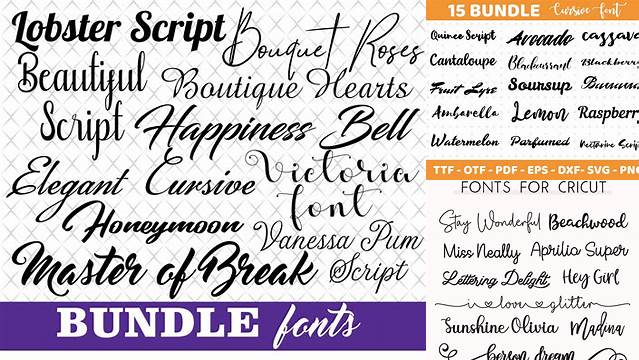
Free Cursive Fonts For Cricut: Your Ultimate Guide
Hey crafters! Are you looking to add a touch of elegance and personality to your Cricut projects? Cursive fonts are the perfect way to do it! They can transform a simple design into something truly special, whether you're making personalized gifts, home decor, or party invitations. But with so many cursive fonts out there, finding the right one for your project – and making sure it works seamlessly with your Cricut – can feel a little overwhelming. Don't worry, guys, I'm here to guide you through the world of free cursive fonts for Cricut, showing you where to find them, how to use them, and even some tips and tricks for making your projects look their absolute best. So, grab your Cricut machine and let's dive into the beautiful world of cursive lettering!
Why Choose Cursive Fonts for Your Cricut Projects?
Before we jump into the font hunt, let's talk about why cursive fonts are such a fantastic choice for your Cricut creations. Cursive fonts, with their flowing lines and connecting letters, bring a sense of sophistication and personalization that other fonts just can't match. Think about it: a simple quote in a basic font is nice, but the same quote in a beautiful cursive font? It instantly becomes an eye-catching piece of art. The fluidity and grace of cursive lettering evoke feelings of elegance, romance, and even a bit of whimsy, making them perfect for a wide range of projects. From wedding invitations and personalized monograms to inspirational wall decals and heartfelt greeting cards, the possibilities are endless. Choosing the right cursive font can elevate your project from ordinary to extraordinary. The flowing lines create a sense of movement and rhythm, drawing the eye and adding a touch of personality. Imagine a custom-made birthday banner with each letter gracefully connected, or a delicate name decal for a nursery wall. These are the kinds of projects that cursive fonts make possible. The right cursive font can truly capture the essence of your message and make your creations stand out. However, it's not just about aesthetics. Cursive fonts can also add a layer of meaning and emotion to your projects. A handwritten-style font can evoke feelings of nostalgia and intimacy, making it perfect for sentimental gifts or heartfelt messages. A bold and flowing script can convey confidence and energy, while a delicate and elegant cursive can create a sense of romance and sophistication. The choice of font can speak volumes, so think carefully about the message you want to convey and select a font that aligns with your vision. Ultimately, the power of cursive fonts lies in their ability to transform the ordinary into the extraordinary. By adding a touch of elegance, personalization, and emotion, these fonts can help you create projects that are truly unique and memorable. So, whether you're a seasoned crafter or just starting out, exploring the world of cursive fonts is sure to unlock a new level of creativity and allow you to bring your visions to life.
Finding Free Cursive Fonts for Cricut
Okay, let's get to the fun part – finding those gorgeous cursive fonts! The internet is a treasure trove of free fonts, but navigating through them all can be a bit like searching for a needle in a haystack. You want to find fonts that are not only beautiful but also compatible with Cricut Design Space and licensed for commercial use if you plan to sell your creations. So, where do you start? There are a few fantastic resources that I highly recommend. First up are dedicated font websites like Dafont, FontSpace, and Creative Fabrica (which often has freebies sections). These sites have massive libraries of fonts, many of which are cursive. The key is to use their filters and search functions effectively. Look for categories like "script," "handwritten," or "calligraphy" to narrow down your search. When browsing, pay close attention to the font license. Many fonts are free for personal use but require a commercial license if you intend to use them in products you sell. Make sure you understand the terms before you start creating. Another excellent resource is the Cricut Design Space itself! Cricut offers a selection of fonts, some of which are included with your Cricut Access subscription. While not all of these are free, it's worth exploring what's available, as these fonts are guaranteed to work seamlessly with your machine. Keep an eye out for special promotions and free font bundles that Cricut occasionally offers. Beyond font websites and Cricut Design Space, there are also online design communities and blogs that often share free font resources. Sites like The Hungry JPEG and Creative Market often have weekly freebies that include beautiful cursive fonts. Following your favorite crafting blogs and social media accounts can also lead you to hidden gems. Many designers and font creators offer free fonts as a way to promote their work, so staying connected to the crafting community can be a great way to discover new fonts. When you find a font you love, be sure to download it and install it on your computer. This will allow you to access the font in Cricut Design Space. Remember to restart Design Space after installing a new font so that it appears in your font list. One important tip: it's always a good idea to keep your font library organized. Create folders on your computer to categorize your fonts by style (e.g., cursive, sans-serif, display) to make them easier to find later. With a little bit of searching and organization, you'll have a stunning collection of free cursive fonts at your fingertips, ready to elevate your Cricut projects to the next level. Remember to always double-check the font license before using it in your projects to ensure you're complying with the terms of use.
Tips and Tricks for Beautiful Cursive Cricut Projects
Okay, guys, you've got your fonts installed, you know how to use them in Cricut Design Space, but let's talk about taking your projects to the next level! There are some key tips and tricks that can really make your cursive creations shine. First up, consider the material you're working with. Different materials will showcase cursive fonts in different ways. For paper crafts, a delicate and flowing script can add a touch of elegance to cards, invitations, and scrapbook pages. For vinyl projects, a bolder cursive font can stand out beautifully on signs, decals, and apparel. Think about the overall aesthetic you're aiming for and choose a font that complements your material. Color is another powerful tool when working with cursive fonts. A contrasting color can make your lettering pop, while a subtle color palette can create a more understated and sophisticated look. Experiment with different color combinations to see what works best for your project. Metallic vinyl or glitter cardstock can add a touch of glamour to your cursive designs, while matte vinyl or textured paper can create a more rustic or vintage feel. Embellishments can also elevate your cursive projects. Think about adding flourishes, swirls, or other decorative elements to your lettering. You can find free flourishes online or create your own in Design Space using shapes and drawing tools. Layering different cursive fonts can also create a visually interesting effect. Try pairing a bold script with a delicate handwritten font to add depth and dimension to your design. Just be careful not to overcrowd your project – keep the overall design balanced and harmonious. The size of your cursive lettering is also crucial. Make sure the font is legible and proportional to the rest of your design. A font that's too small can be difficult to read, while a font that's too large can overwhelm the project. Use the sizing tools in Design Space to adjust the font size until it looks just right. When cutting cursive fonts, especially intricate ones, it's essential to use a sharp blade and a clean cutting mat. A dull blade can tear the paper or vinyl, resulting in a messy cut. A sticky mat will hold the material in place during cutting, preventing it from shifting and ensuring a clean and precise result. If you're using heat transfer vinyl (HTV), make sure to mirror your design before cutting. This will ensure that the lettering is oriented correctly when you iron it onto your fabric. And speaking of HTV, remember to weed your design carefully, removing all the excess vinyl around the letters. This can be a bit tedious, especially with intricate cursive fonts, but it's essential for a professional-looking finish. Finally, don't be afraid to experiment and have fun! Cursive fonts are incredibly versatile, and there are endless possibilities for how you can use them in your Cricut projects. Try different fonts, materials, colors, and embellishments until you find a style that you love. With a little bit of creativity and practice, you'll be creating stunning cursive designs that will impress everyone!
Troubleshooting Common Cursive Font Issues in Cricut
Even with the best fonts and the most careful planning, you might encounter a few hiccups along the way when working with cursive fonts in Cricut Design Space. But don't worry, guys, most issues are easily fixable! Let's troubleshoot some common problems and get you back on track to creating beautiful cursive projects. One of the most frequent issues is letters not connecting properly. As we discussed earlier, cursive letters are meant to flow together, but sometimes Design Space doesn't automatically connect them. This usually happens when the default letter spacing is too wide. The solution is to use the "Letter Spacing" tool in the top toolbar to reduce the space between the letters until they touch. If that doesn't fully solve the problem, you might need to ungroup the letters and move them individually, using the kerning workaround we talked about. Another common issue is jagged or uneven cuts. This can happen for a few reasons. First, make sure you're using a sharp blade and a clean cutting mat. A dull blade can tear the material, and a dirty mat can prevent it from adhering properly. If your blade and mat are in good condition, try adjusting your cut settings. Different materials require different pressure and speed settings. Experiment with your settings until you find the sweet spot for your material. If you're cutting a very intricate cursive font, you might also try using the "Fine Point Blade" or the "Deep Point Blade" for a more precise cut. Sometimes, you might encounter issues with welding. If you weld your cursive letters and they don't connect properly, or if parts of the letters disappear, it's usually because there are overlapping lines or gaps in the design. To fix this, try ungrouping the letters, adjusting their positions slightly, and then welding them again. You might also need to use the "Contour" tool to remove any unwanted lines or shapes. Another frustrating problem is fonts not appearing in Design Space. This usually happens if you haven't restarted Design Space after installing the font. Make sure to close Design Space completely and then reopen it. If the font still doesn't appear, double-check that you've installed it correctly. On Windows, the font should be in the "Fonts" folder in the Control Panel. On a Mac, it should be in Font Book. If the font is installed but still not showing up, try clearing your Design Space cache. You can do this by going to the Design Space menu (the three lines in the top left corner), selecting "Settings," and then clicking "Clear Application Cache." Finally, sometimes the issue isn't with the font itself but with the design size. If you're working with a very small cursive design, the letters might be too close together, making it difficult for the Cricut to cut them cleanly. Try increasing the size of the design to give the machine more room to work. Remember, troubleshooting is a part of the crafting process. Don't get discouraged if you encounter a problem. Take a deep breath, try these tips, and you'll be creating beautiful cursive projects in no time!
Conclusion: Unleash Your Creativity with Cursive Fonts
So, there you have it, guys! A comprehensive guide to the wonderful world of cursive fonts for Cricut. We've covered everything from why cursive fonts are so awesome to where to find them, how to install and use them in Design Space, and even how to troubleshoot common issues. Now it's time for you to unleash your creativity and start crafting! Cursive fonts are a fantastic way to add a personal touch to your projects, whether you're making gifts, home decor, party decorations, or anything else your heart desires. They bring a sense of elegance, sophistication, and personality that other fonts just can't match. The beauty of cursive fonts is their versatility. They can be used in so many different ways, from delicate and flowing scripts to bold and dramatic brushstrokes. You can use them to create monograms, quotes, invitations, signage, and so much more. The possibilities are truly endless. Don't be afraid to experiment with different fonts, materials, colors, and embellishments to find your own unique style. Remember to always check the font license before using a font in your projects, especially if you plan to sell your creations. There are tons of free fonts available for personal use, and many commercial licenses are affordable. And don't forget to utilize the resources we've discussed, like font websites, Cricut Design Space, and online crafting communities. These are great places to discover new fonts, get inspiration, and connect with other crafters. Crafting with cursive fonts can be a bit challenging at first, especially when it comes to letter spacing, kerning, and welding. But with a little bit of practice and patience, you'll get the hang of it. Don't be afraid to make mistakes – they're part of the learning process. And when you do encounter a problem, remember the troubleshooting tips we've covered. The most important thing is to have fun and let your creativity flow. Crafting should be an enjoyable experience, so don't put too much pressure on yourself to be perfect. Embrace the process, experiment with new ideas, and celebrate your creations, no matter how big or small. So, what are you waiting for? Go ahead and explore the world of cursive fonts and start creating something beautiful today! Your Cricut machine is ready, your fonts are installed, and your imagination is the only limit. Happy crafting, guys! I can't wait to see what you create.